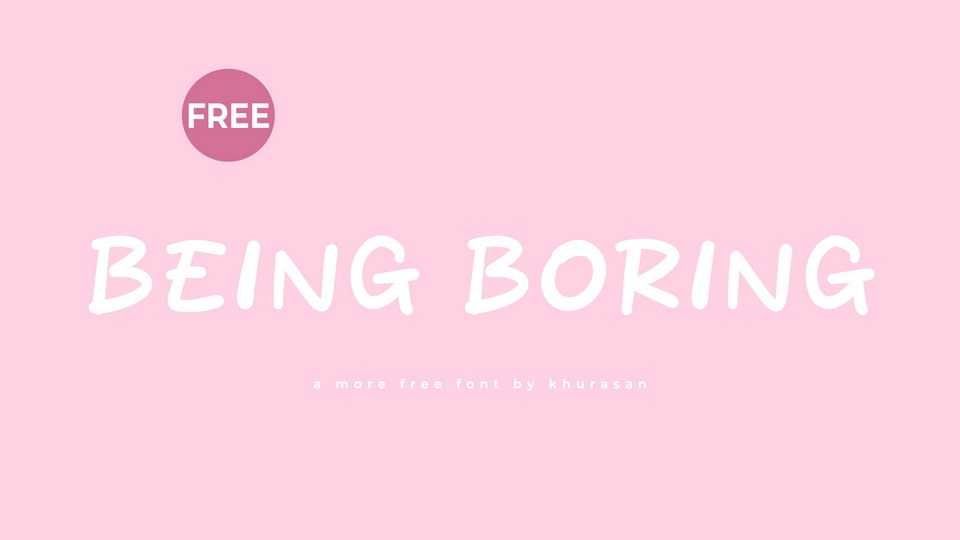
Download Being Boring font, a casual and natural hand-drawn typeface that brings a touch of spontaneity and warmth to your designs. The font is crafted with fluid strokes and subtle imperfections, capturing the essence of handwritten charm and authenticity.